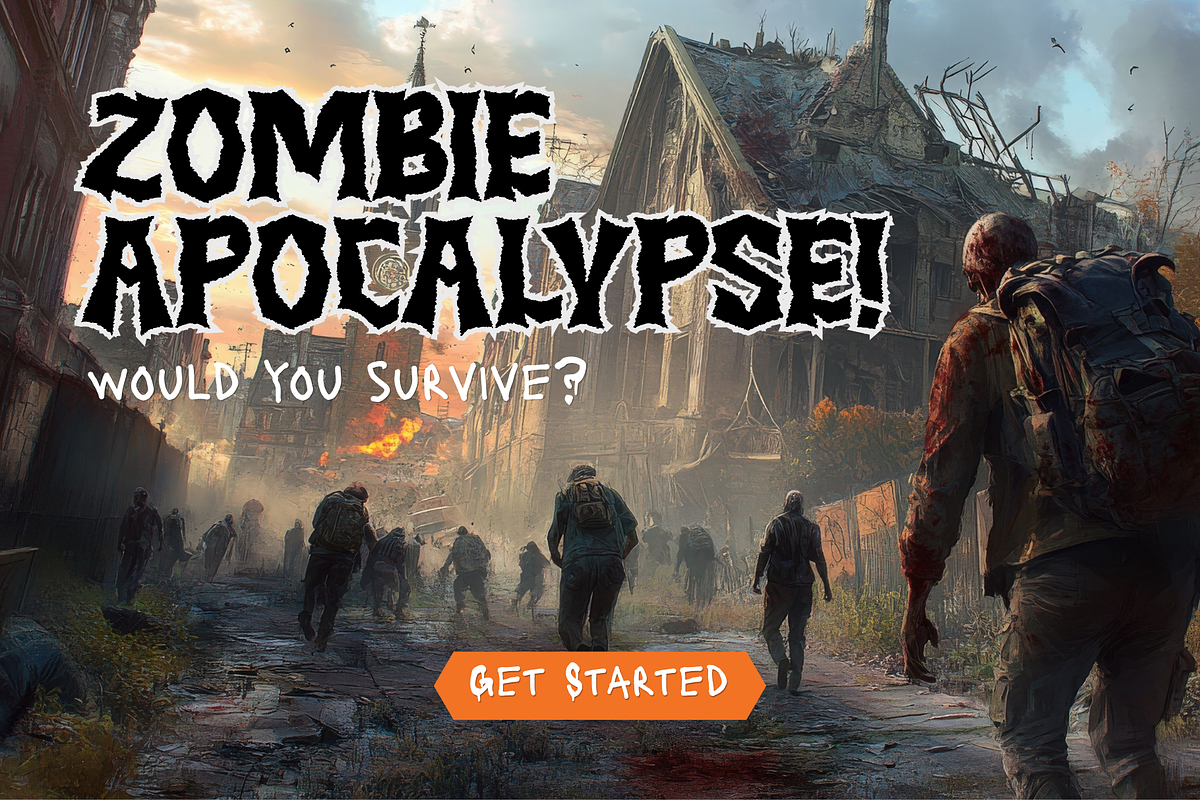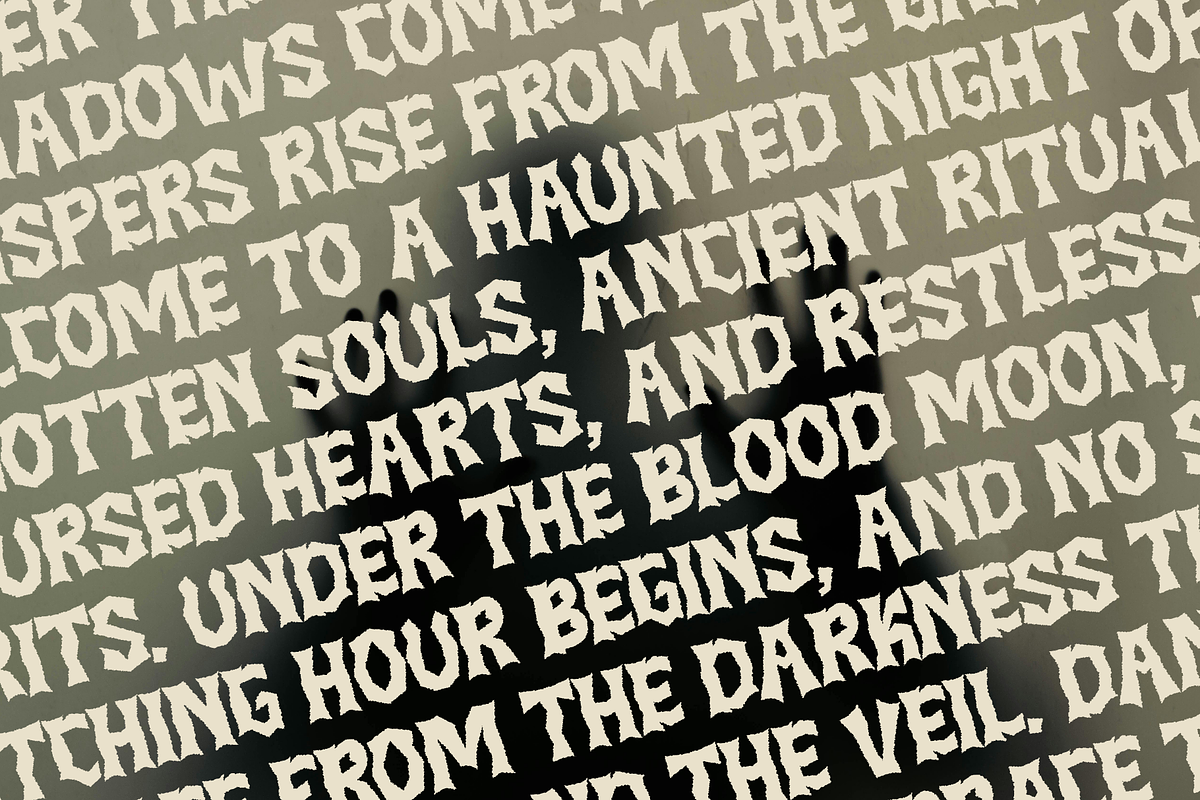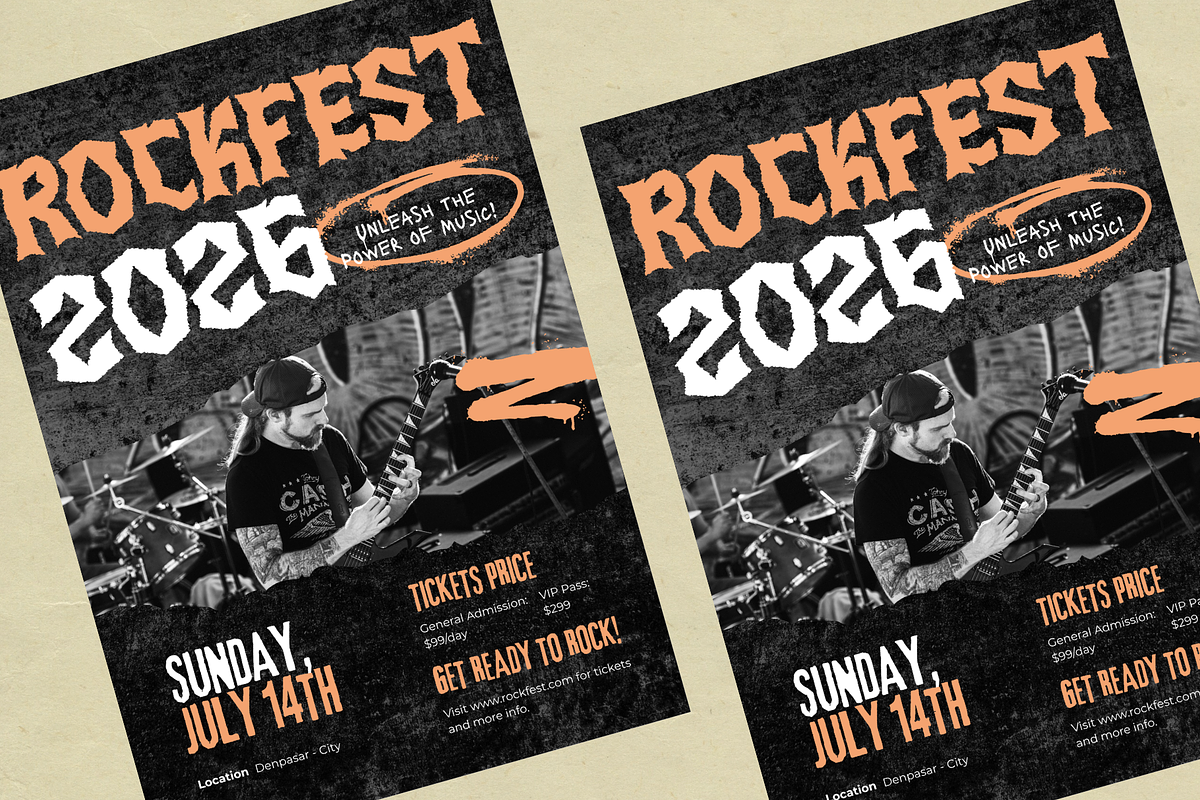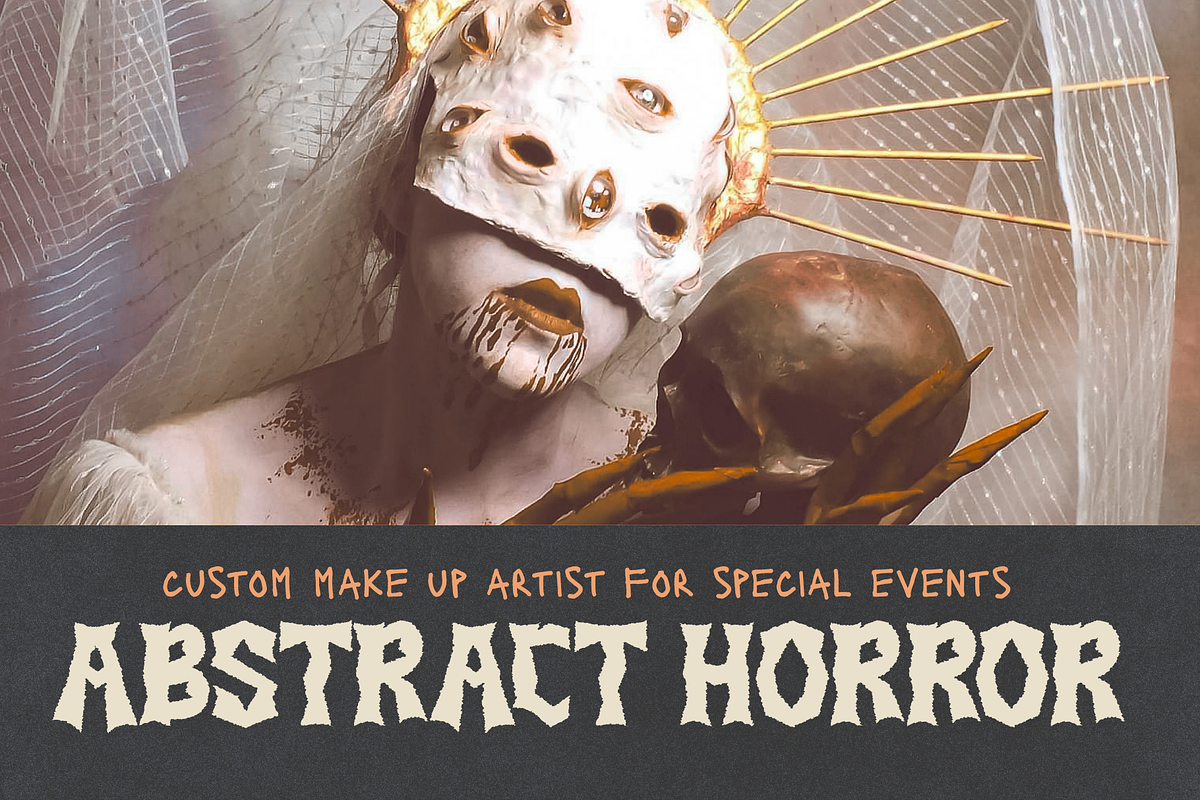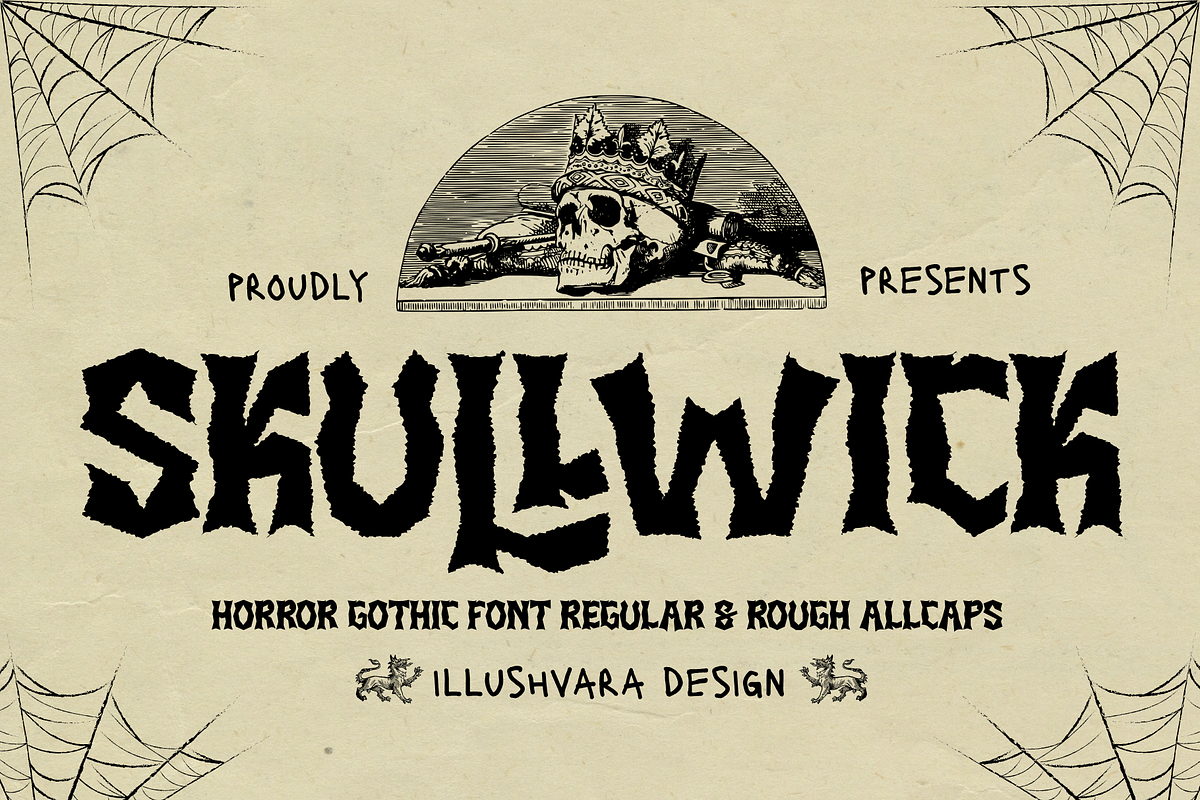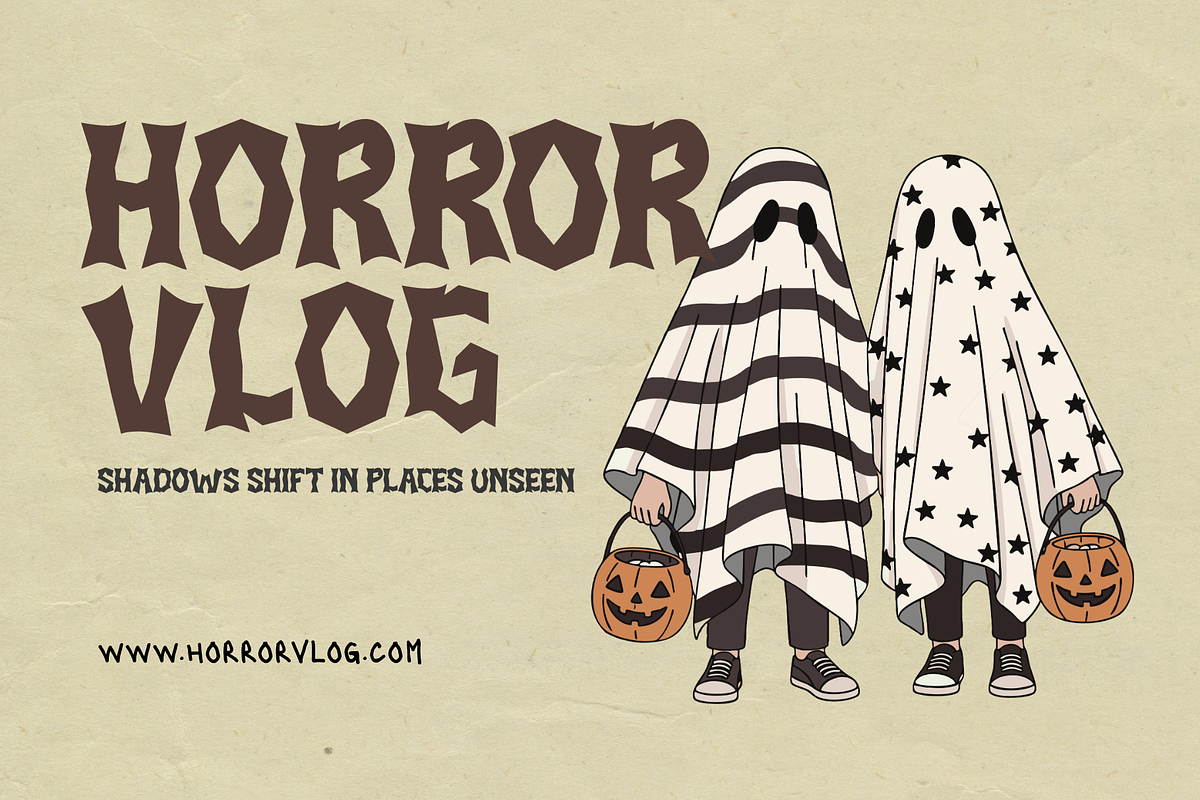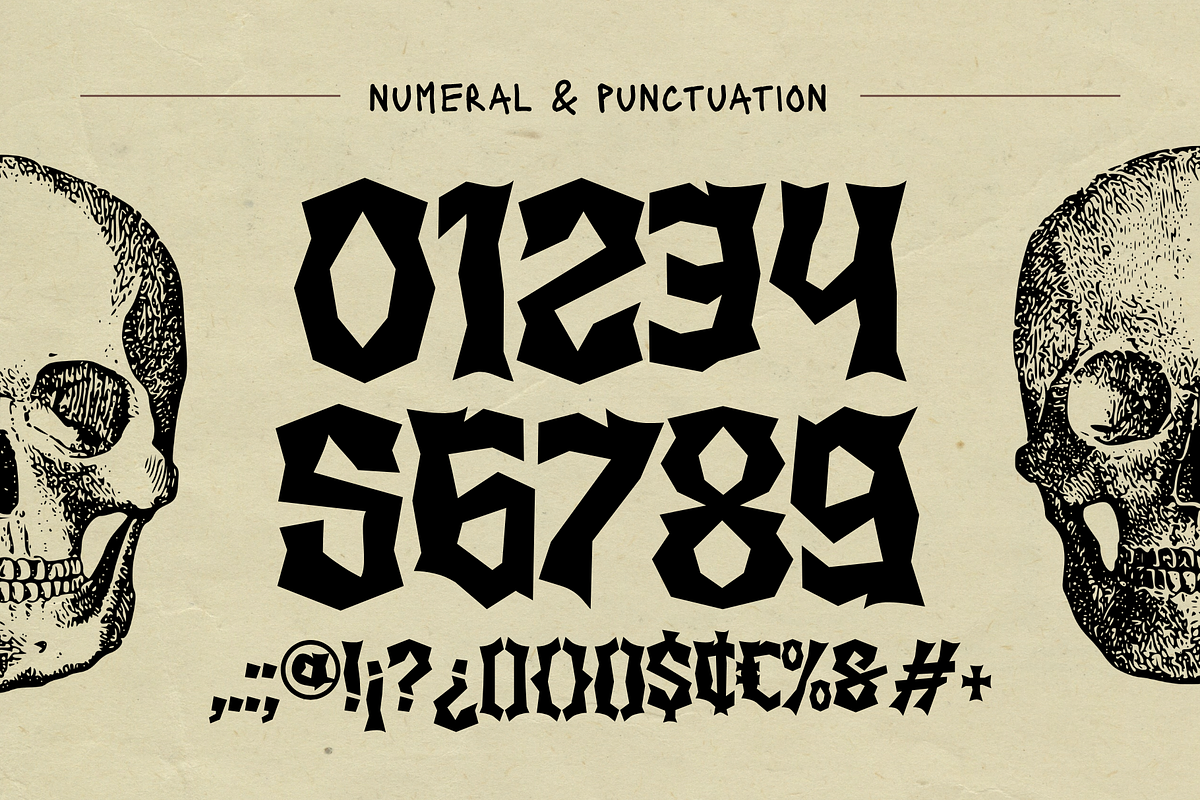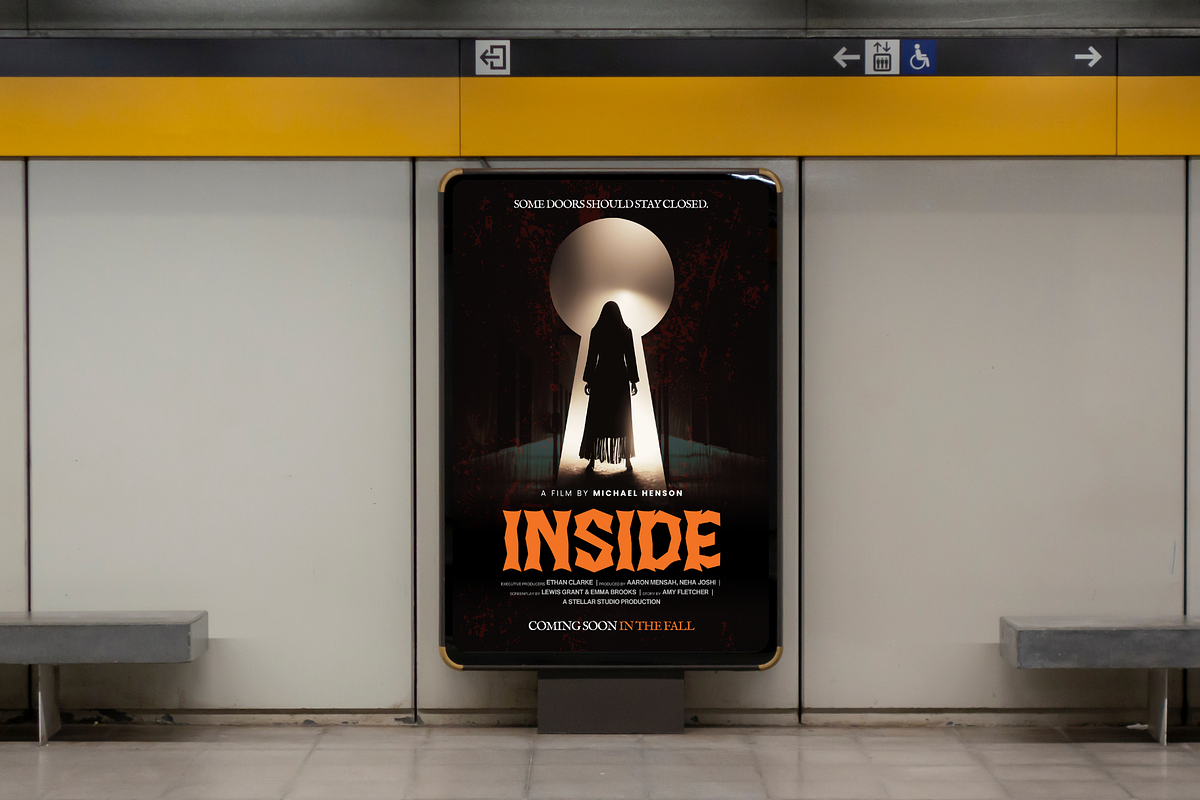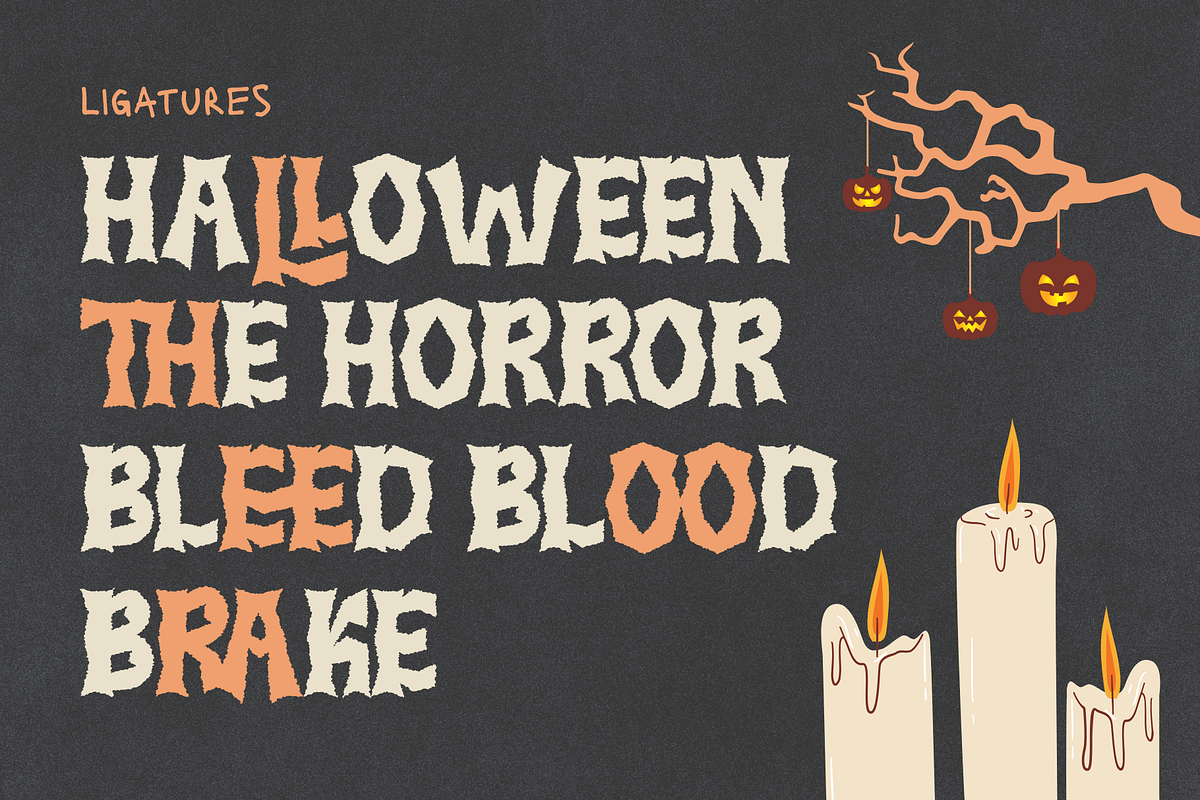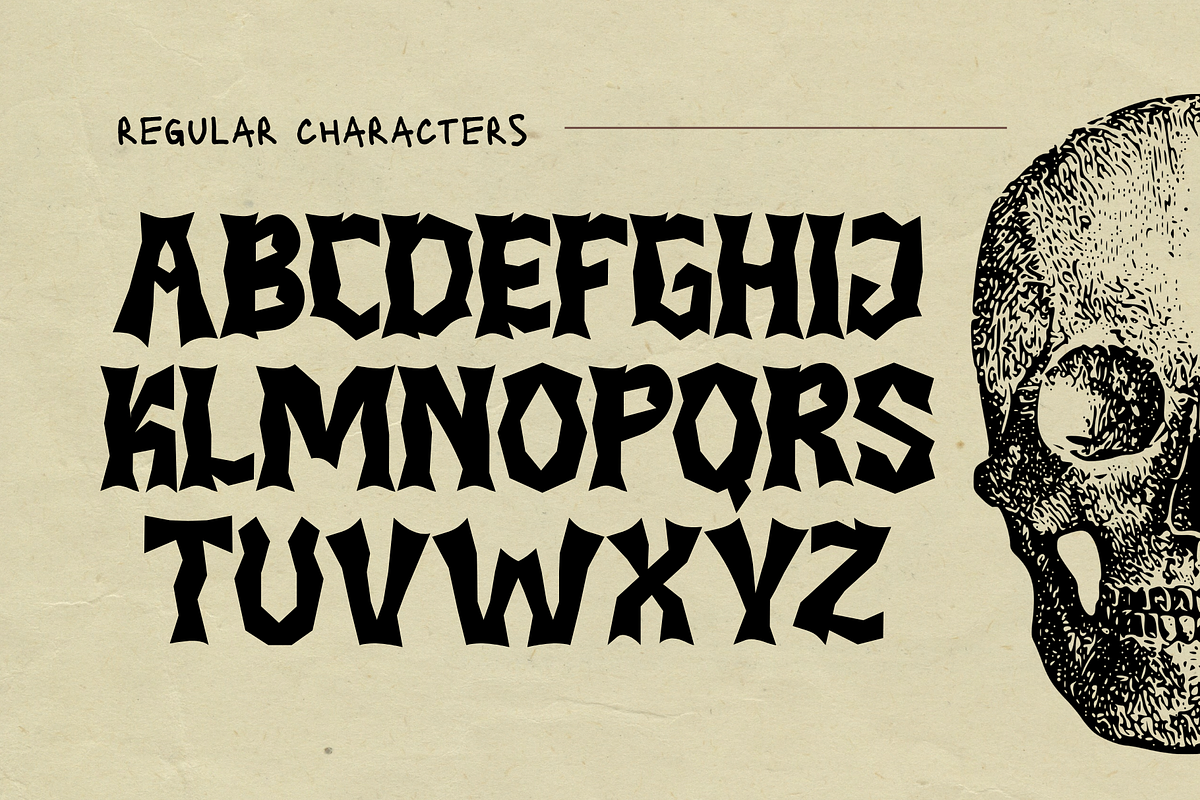
Skullwick - Horror Gothic Halloween
Skullwick is a bold horror gothic display font inspired by dark rituals, haunted nights, and vintage Halloween aesthetics. It comes with two distinct styles: Regular Clean for a sharp, polished look and Rough for a distressed, grungy character. Perfect for Halloween posters, horror artwork, gothic branding, music events, band merchandise, album covers, ogos, packaging, and other dark-themed creative projects.